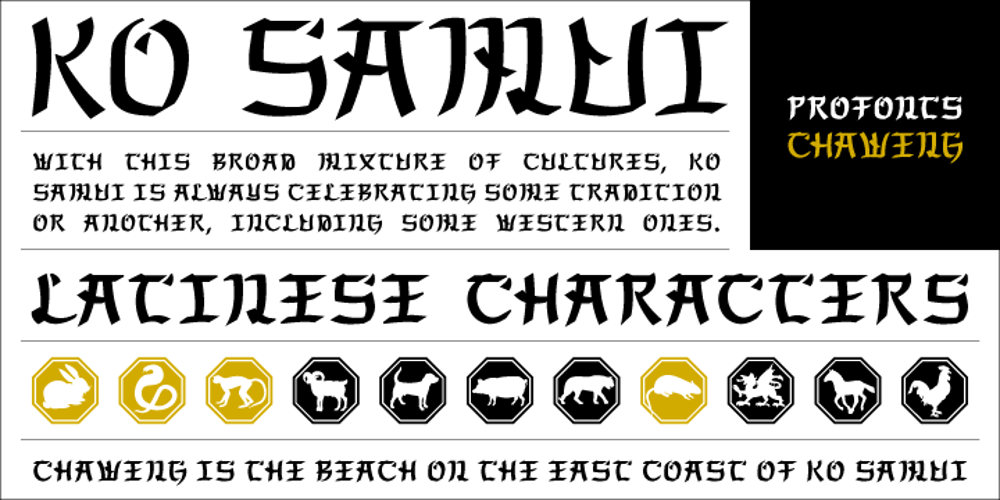
Chaweng Font Family was designed by URW++ and published by profonts. Chaweng contains 1 styles and family package options. Chaweng is a coastal region on Ko Samui, an island in the Golf of Thailand, about 20 miles off the mainland. The design of Chaweng is based on some ‘Latinese’ characters Peter Rosenfeld detected while celebrating Chinese New Years Eve with people from Thailand and China on the beach of Chaweng. Ralph M. Unger took on the idea and developed a completely new typeface, very beautiful, very ‘Latinese’. Chaweng obviously shows some of the typical characteristics of Chinese ideograms, still keeping a high level of legibility. To add something really special, Unger digitized the Chinese signs of the zodiac which change annually, on the occasion of the Chinese New Years Eve.Chaweng is perfect for signs and small texts, e.g. for any Asian restaurant and shops, menues, displays, China towns etc.